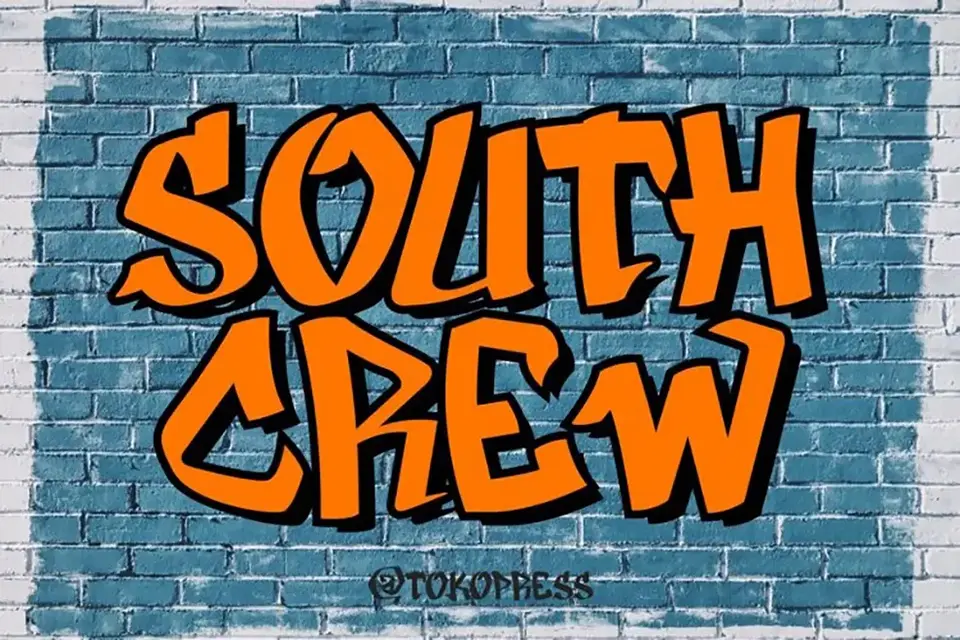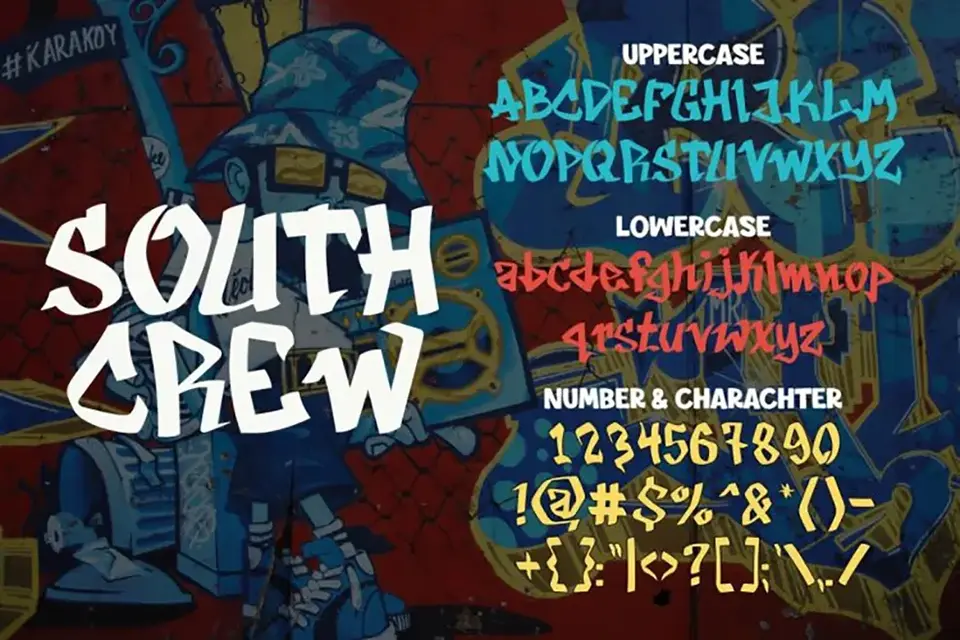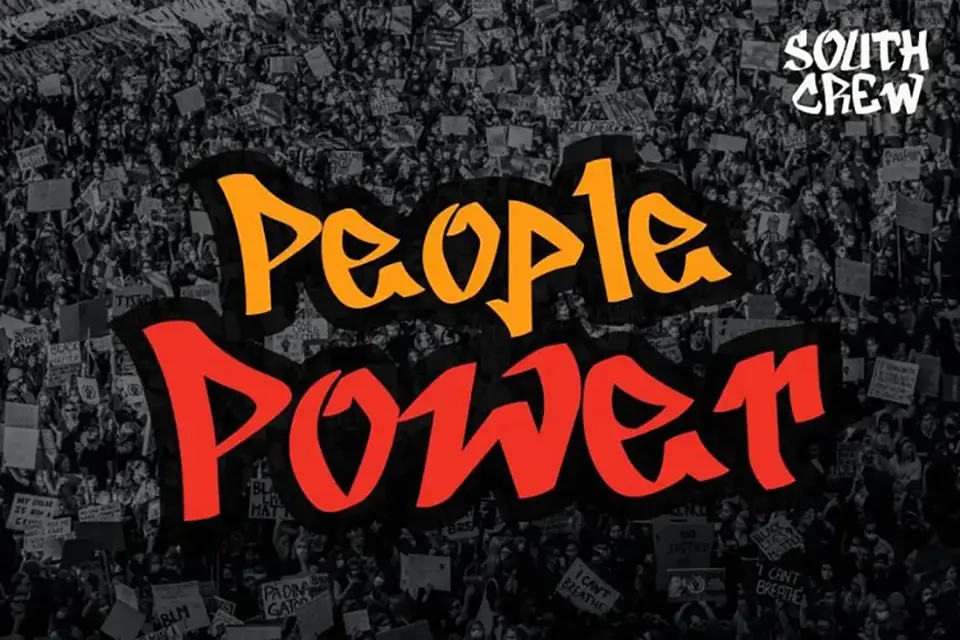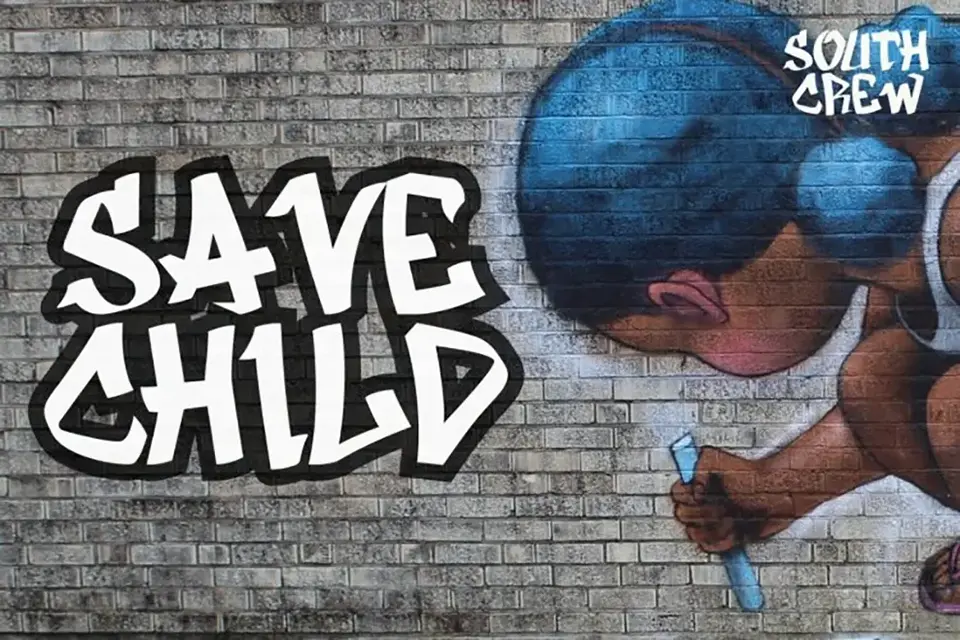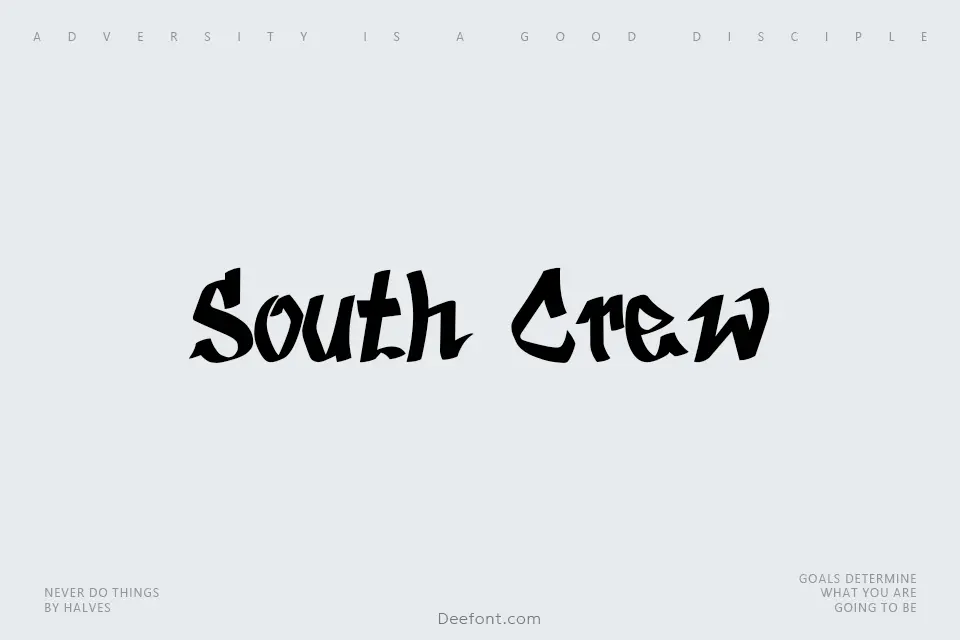
South Crew Font
South Crew is a bold and dynamic graffiti-inspired display font featuring sharp, angular edges and expressive letterforms. Designed by Tokopress, this modern typeface combines street art aesthetics with clean legibility, making it ideal for headlines, logos, posters, and branding projects. The font’s distinctive style showcases thick strokes, exaggerated curves, and pointed terminals that create a rebellious, urban character. Perfect for eye-catching designs in music album covers, sports materials, streetwear, and edgy promotional content. With 108 unique glyphs supporting uppercase and lowercase letters plus symbols, South Crew delivers a standout appearance for projects requiring unconventional typography.